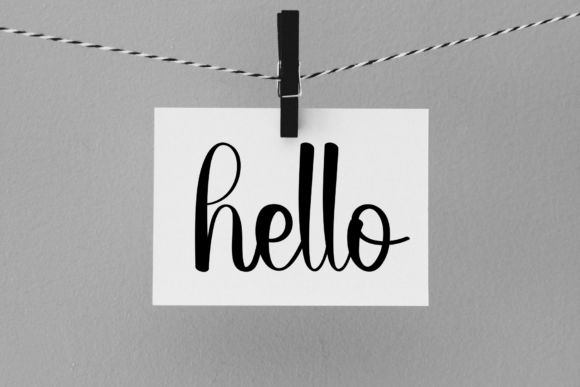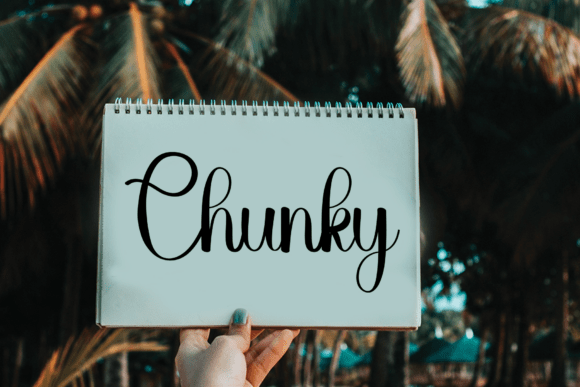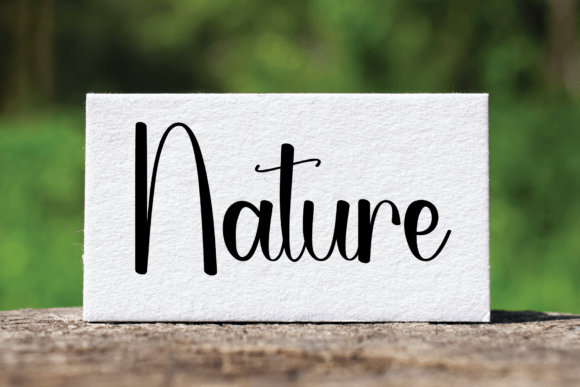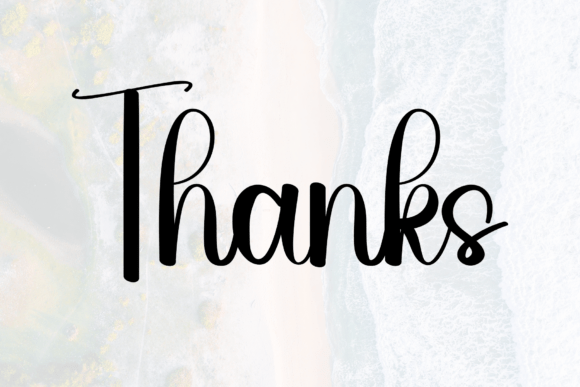
Escape to a State of Relaxation with the Beach Holiday Font
Who hasn’t felt the rush of creativity while strolling along the beach, with the soothing sound of waves and the warmth of the sun on their skin? It’s moments like these that inspire us to create something truly special. For designers, there’s no better way to capture the essence of a beach holiday than with the perfect font.
Introducing the Beach Holiday Font, a charming handwritten font that embodies the carefree spirit of a seaside escape. With its smooth strokes and organic lines, this font is perfect for creating a relaxed atmosphere that’s sure to captivate your audience. Whether you’re designing a brand identity, crafting a wedding invitation, or creating social media graphics, the Beach Holiday Font is a valuable addition to any designer’s toolkit.
Beach Holiday Font Key Features
- Unique Characteristics: The font features a unique, hand-drawn design with a relaxed, beach-inspired feel, perfect for creating a laid-back atmosphere in branding and marketing materials.
- Language Support: Beach Holiday Font supports a wide range of languages, including Latin, Cyrillic, and Greek, making it a versatile choice for global branding and marketing efforts.
- Customization: The font includes a range of OpenType features, allowing designers to access advanced typographic options and customize the font to suit their specific needs.
Beach Holiday Font Review
I’ve had the chance to work with the “Beach Holiday Font” on a recent project, and I’d like to share my honest thoughts about it.
- The font’s aesthetic is perfect for summer-themed projects, it captures the carefree and playful vibe of a beach holiday.
- The font is highly legible, even at smaller font sizes, making it suitable for body text and headings.
- The font supports a wide range of languages, making it a great option for multilingual projects.
- The font lacks a bold weight, which might be a limitation for projects that require emphasis or hierarchy.
- The font’s styling is quite unique, which might not be suitable for projects that require a more neutral or conservative design.
- The font doesn’t come with any matching icons or graphics, which might be a drawback for designers who prefer a cohesive design system.
Overall, I think the “Beach Holiday Font” is a great option for summer-themed projects or projects that require a playful and carefree vibe. However, it might not be the best choice for projects that require a more formal or conservative design.
Tips for Getting the Most Out of the Beach Holiday Font
To get the most out of the Beach Holiday Font, use it in conjunction with bright and airy colors, and consider pairing it with a sans-serif font for contrast.
Use the Beach Holiday Font to create eye-catching headings and titles, and reserve it for special occasions or promotional materials.
The Beach Holiday Font is perfect for:
- Summer-themed promotions and advertisements.
- Travel and tourism brochures.
- Beach-themed party invitations and decorations.
Alternative Beach Fonts for Designers
Lobster Font is a casual, cursive font suitable for designing beach-themed websites, magazines, and advertisements. It’s ideal for creating a relaxed, summer vibe. Compared to Beach Holiday Font, Lobster Font has a more playful and whimsical feel, making it perfect for casual designs.
Great Vibes Font is a modern, handwritten font that’s perfect for creating a beachy, laid-back atmosphere. It’s ideal for designing websites, social media posts, and advertisements that require a fun and carefree tone. Compared to Beach Holiday Font, Great Vibes Font has a more contemporary feel and is more versatile in its applications.